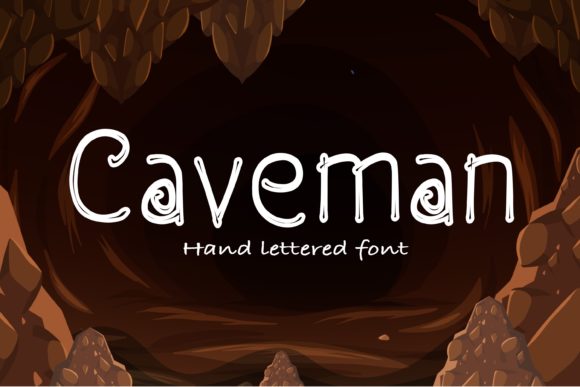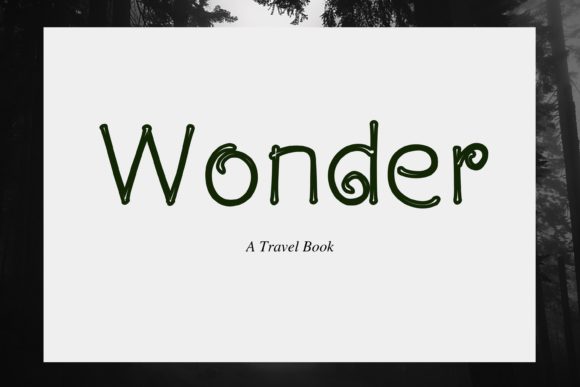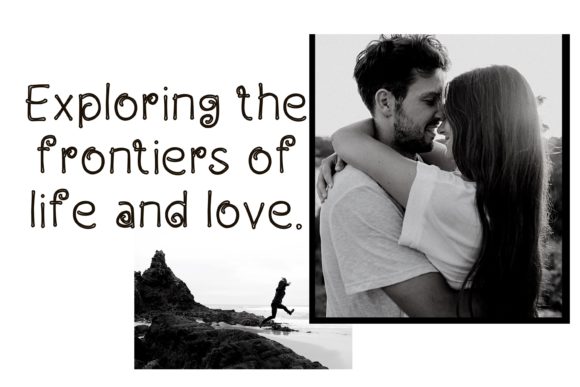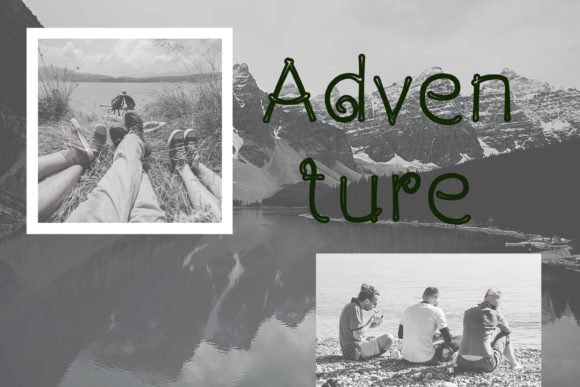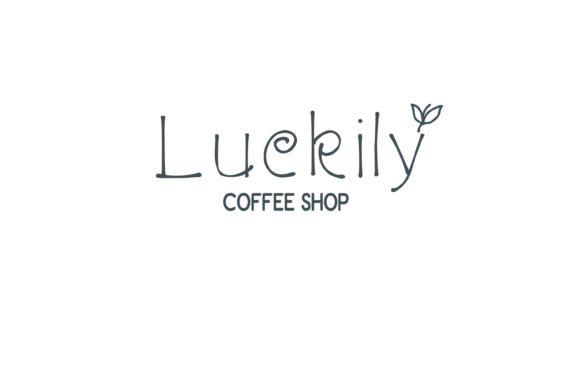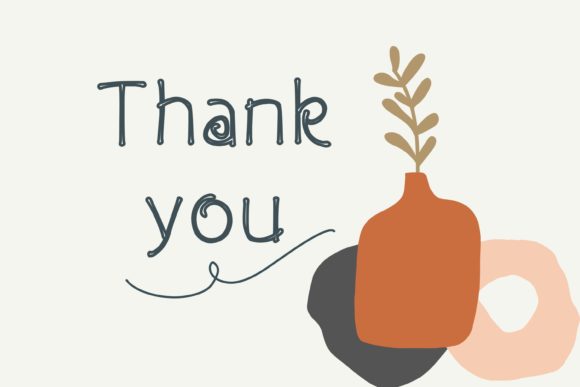
Caveman Font
About Caveman Font
“Caveman” is a simple handwritten font that adds a rustic and authentic touch to your designs. With its rough and textured appearance, it is particularly well-suited for creating chalkboard quotes or teaching materials. This font brings a nostalgic and vintage vibe, evoking a sense of simplicity and handmade craftsmanship.
The organic and imperfect strokes of “Caveman” give it a unique character, reminiscent of writing on a chalkboard or a cave wall. This makes it a great choice for educational materials, such as worksheets, lesson plans, or classroom displays. Its handwritten style adds a personal and relatable element, enhancing the learning experience and making the content more engaging.
In addition to educational materials, “Caveman” can also be used for various creative projects. It can be applied to craft and DIY projects, adding a rustic and handcrafted feel to labels, signage, or packaging. Its authentic look and feel make it suitable for creating vintage-inspired designs, rustic wedding invitations, or nostalgic posters.
When used in digital media, “Caveman” brings a unique and artistic touch to your graphics. It can be used for social media posts, blog headers, or website elements, giving them a hand-drawn and authentic appearance. By using this font, you can create a visually interesting and captivating design that stands out from the crowd.
Overall, “Caveman” is a versatile font that adds a personal and realistic feel to your designs. Its authentic look and imperfect nature make it perfect for chalkboard quotes, teaching materials, vintage-inspired projects, and more. Let “Caveman” bring a touch of nostalgia and handmade charm to your creations, and watch as it adds depth and character to your designs.